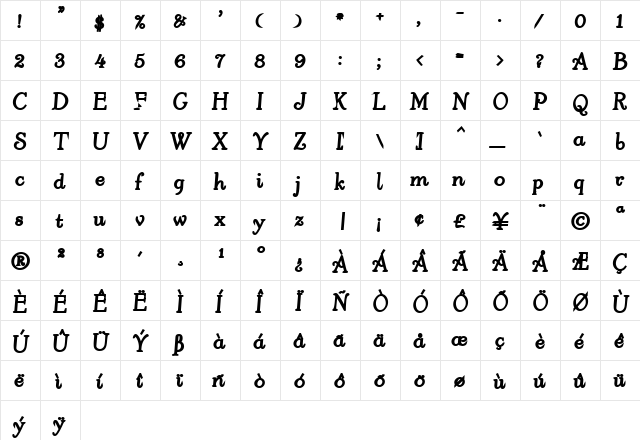
4ArmJoltScriptExtraBold Regular Font Preview
4ArmJoltScriptExtraBold Regular
Design Context for 4ArmJoltScriptExtraBold Typeface
4ArmJoltScriptExtraBold brings a calligraphic fluidity to the page — its connecting strokes and expressive curves give it an unmistakably human quality. The heavy weight commands attention and anchors typographic hierarchies.
Font Pairing: Combine 4ArmJoltScriptExtraBold with a simple geometric sans for maximum contrast — the tension between flowing curves and clean structure is a classic typographic pairing.
Pro Tip: Use 4ArmJoltScriptExtraBold for short runs of text — names, titles, or taglines. Extended body copy in script faces tires the eye quickly.